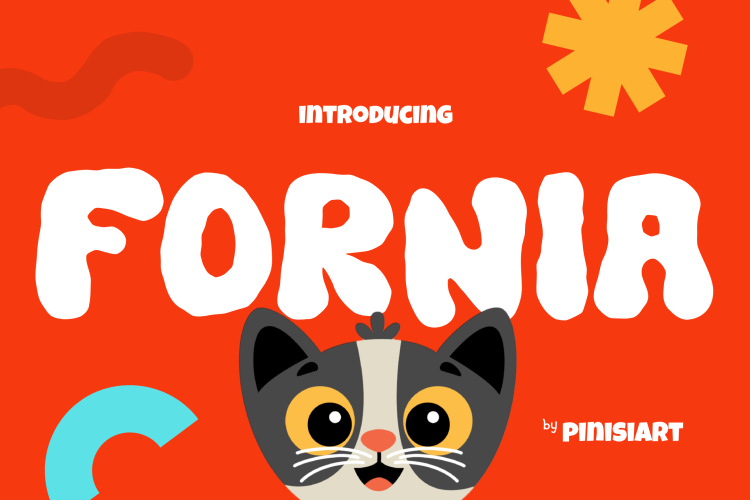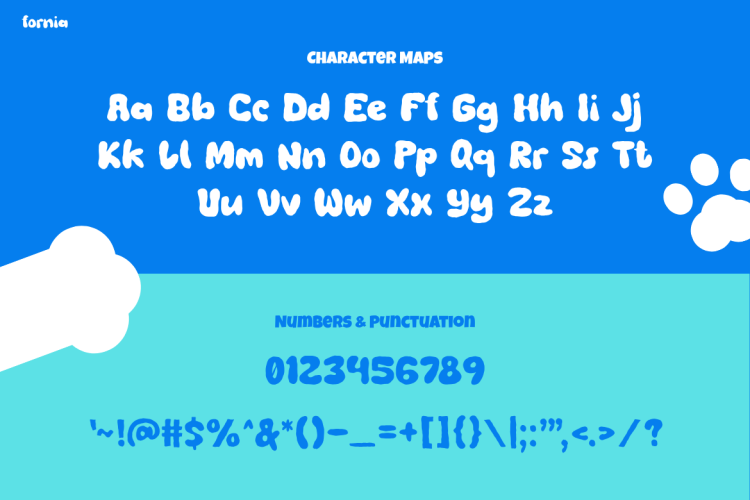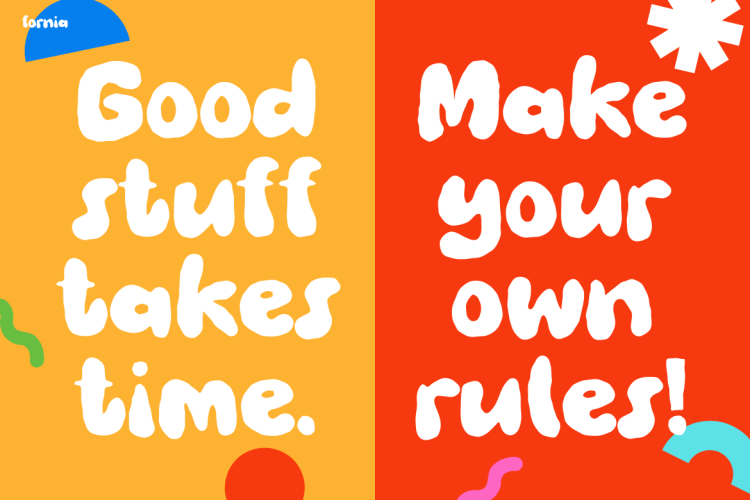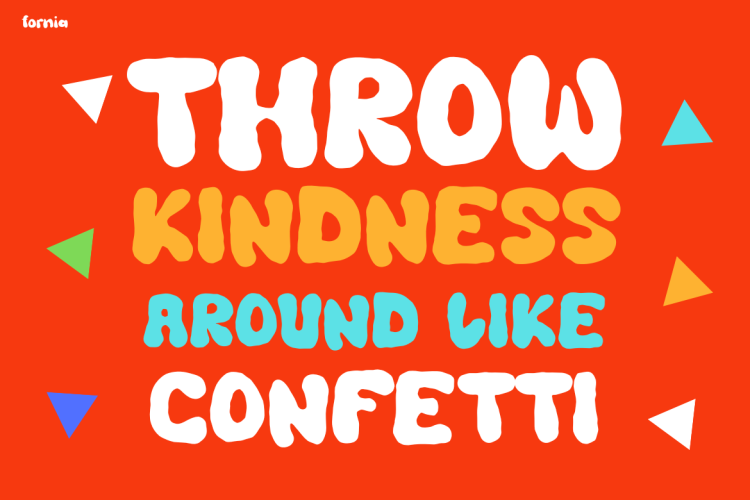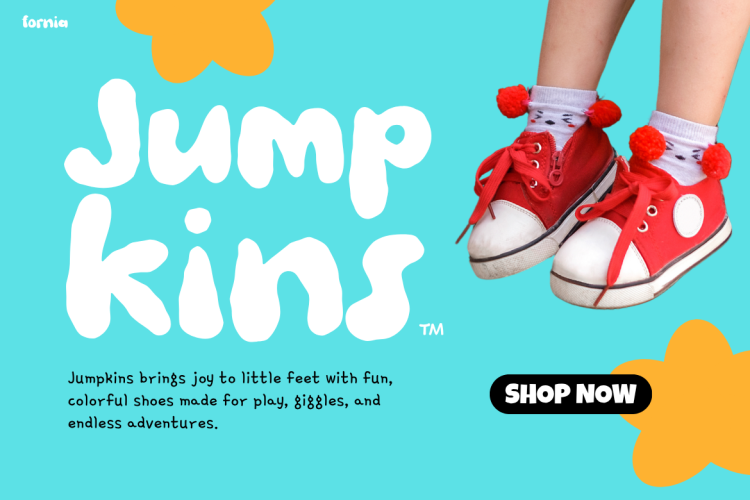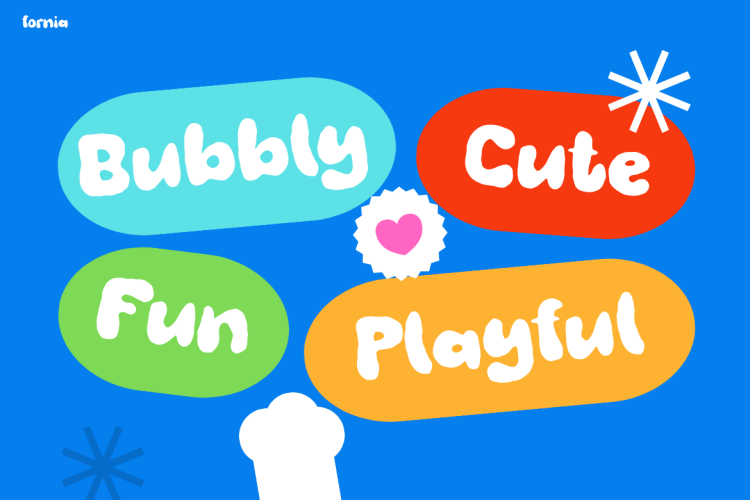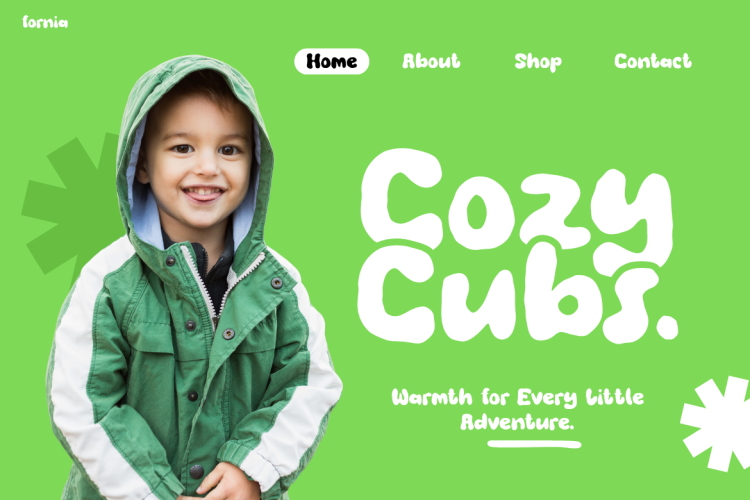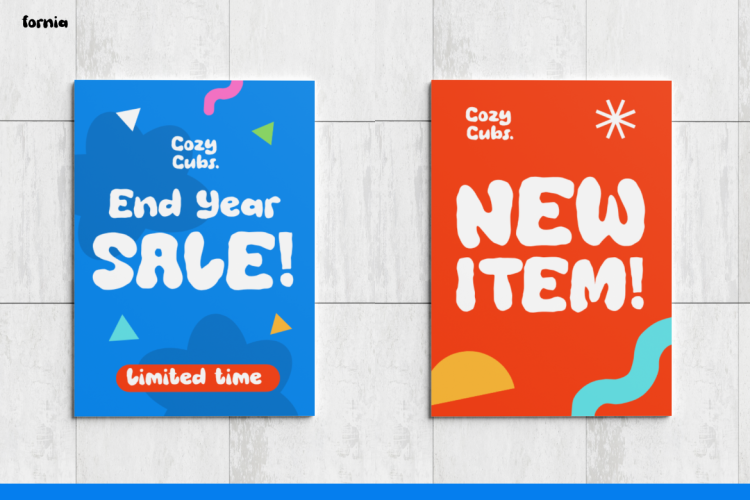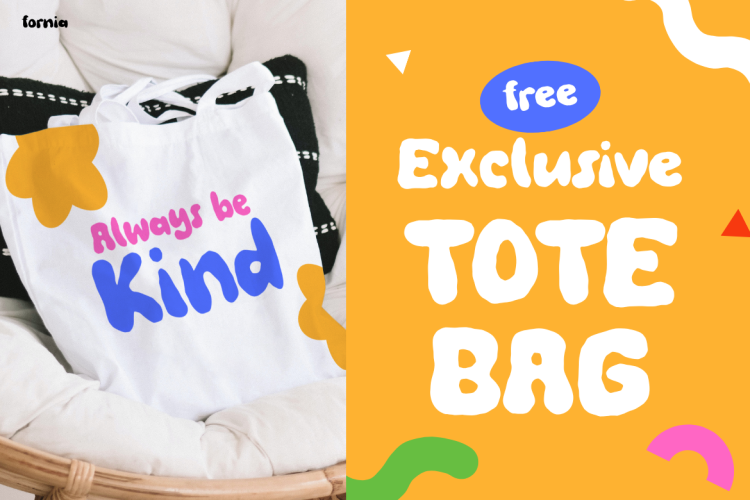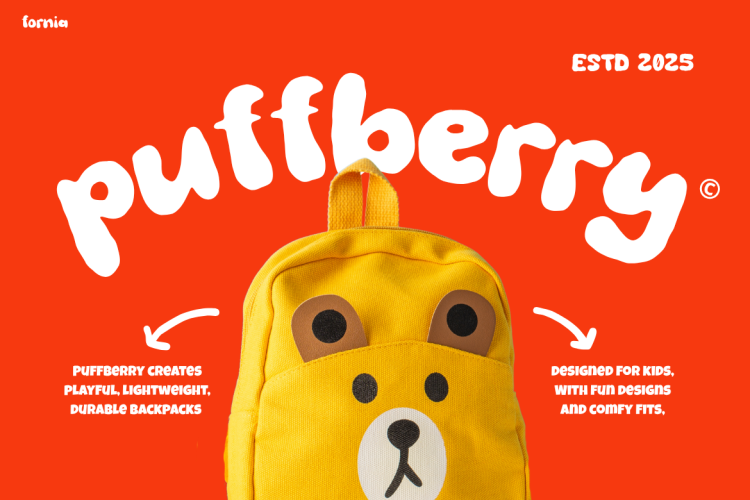
Kids Font Fornia โ Fun, Playful, and Full of Energy
Kids Font Fornia is more than a typefaceโitโs a burst of joy in every letter. The bold curves and rounded shapes make it playful yet clear. Moreover, each character feels alive, adding fun and energy to your designs. This font balances creativity with readability, so your words stay attractive and easy to follow. As a result, Kids Font Fornia brings smiles to every project and turns text into a cheerful experience.
What makes this font so unique is its ability to transform ordinary words into something extraordinary. Its bubbly aesthetic feels friendly, while its smooth strokes keep it professional and polished. In addition, the versatility of Fornia allows you to use it across print, digital, and product design. Whether you want a bold headline for a poster or a playful logo for a brand, this font adapts beautifully. Because of this flexibility, it becomes an essential tool for designers who want to stand out with style.
Who Will Love It?
Kids Font Fornia is perfect for graphic designers who want playful and eye-catching visuals. In addition, teachers and educators can use it to make worksheets, banners, and learning tools more engaging. Parents and event planners will also love it for party invitations, birthday themes, and DIY projects that feel exciting and unique. Furthermore, brands in kidsโ fashion, toys, or lifestyle products can rely on it to build a warm and approachable identity. With its fun personality, Kids Font Fornia works anywhere you want joy, creativity, and connection to shine.
Why Choose Fornia?
Imagine words that smile back at youโthatโs the magic of this font. Therefore, itโs the perfect choice if you want designs that look playful yet professional. Use it for posters, digital content, packaging, or branding, and your projects will instantly stand out. In fact, Kids Font Fornia is not just a fontโitโs your creative partner. With it, every message becomes more playful, warm, and unforgettable. Finally, add it to your collection today and let your words sparkle with life!